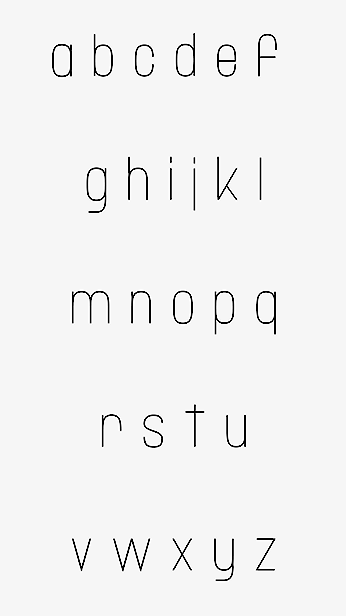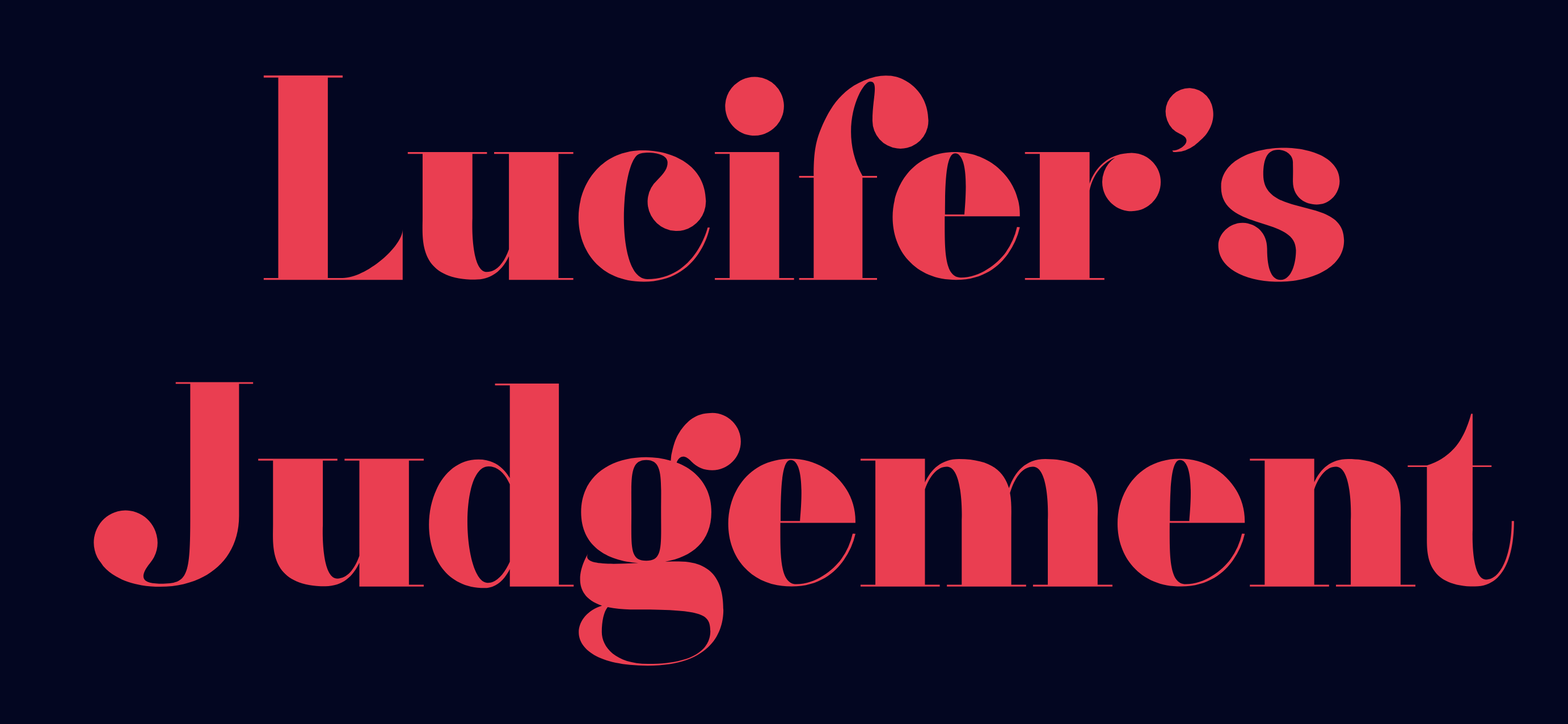
Christian Dexter
Wilmington, DE-based designer in 2019 at Avondale Type Co of ATC Anais (a headline didone) and ATC Nasty (gooey). Other typefaces include ATC Bramford (2019) and AG Mercury Sans (2019).
In 2021, he released ATC Monarch (a rhombic medieval display typeface0 at Avondale.